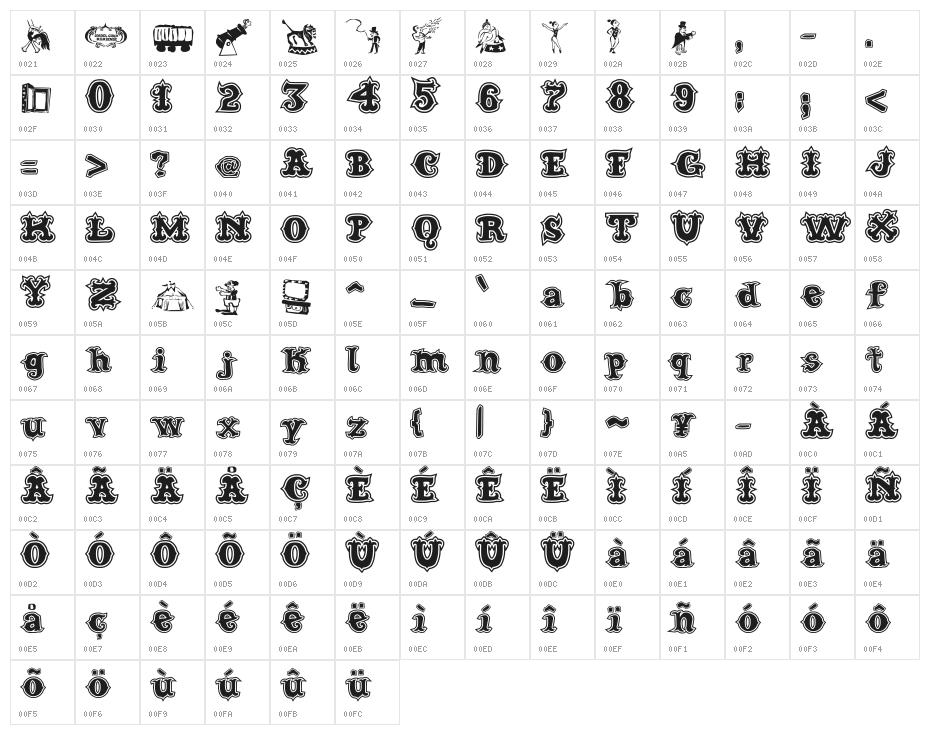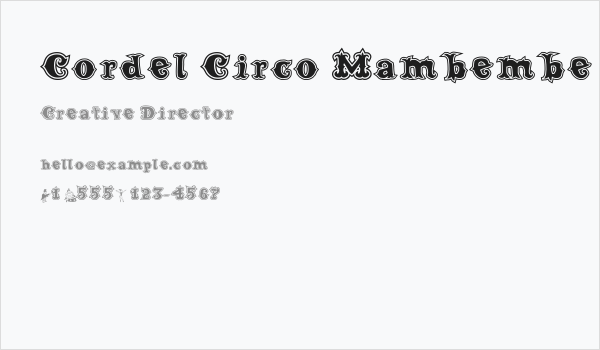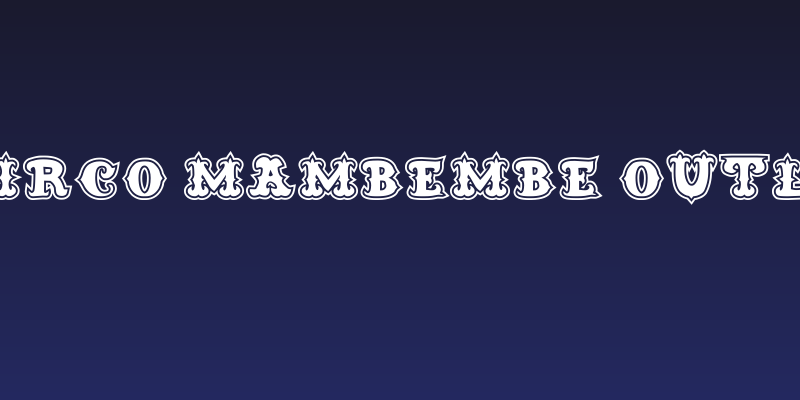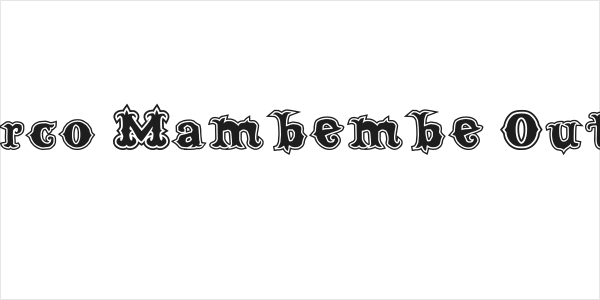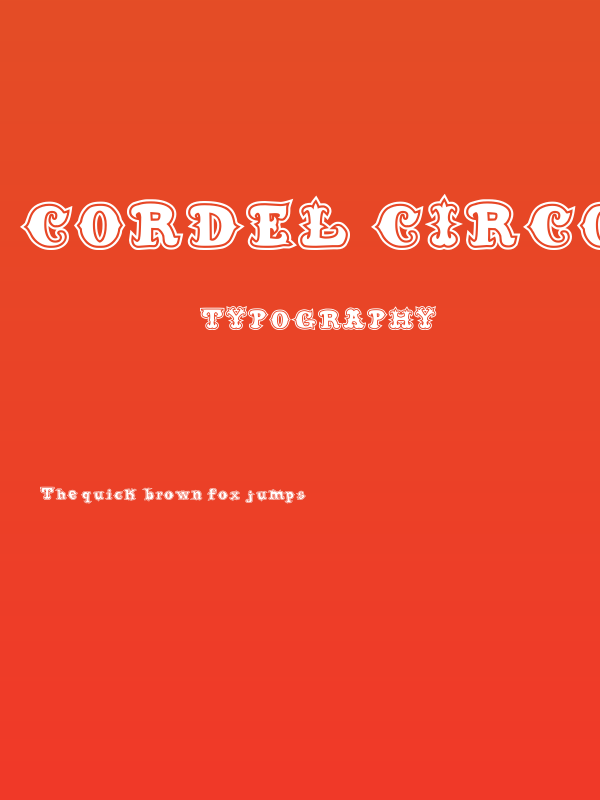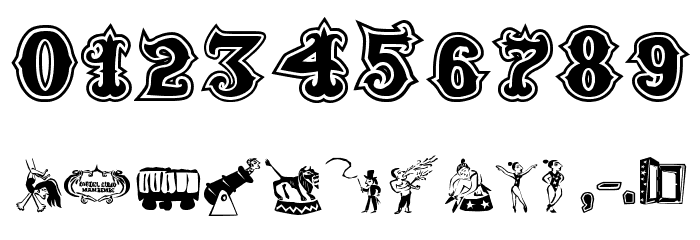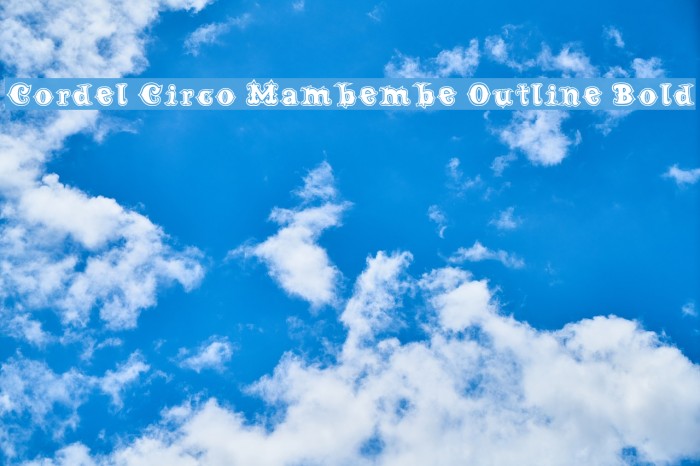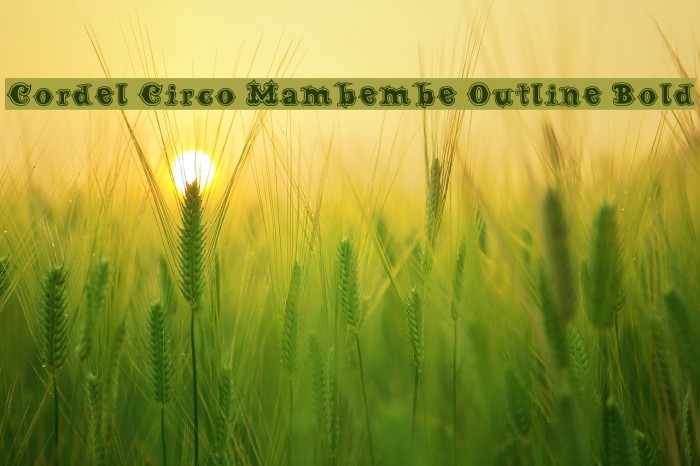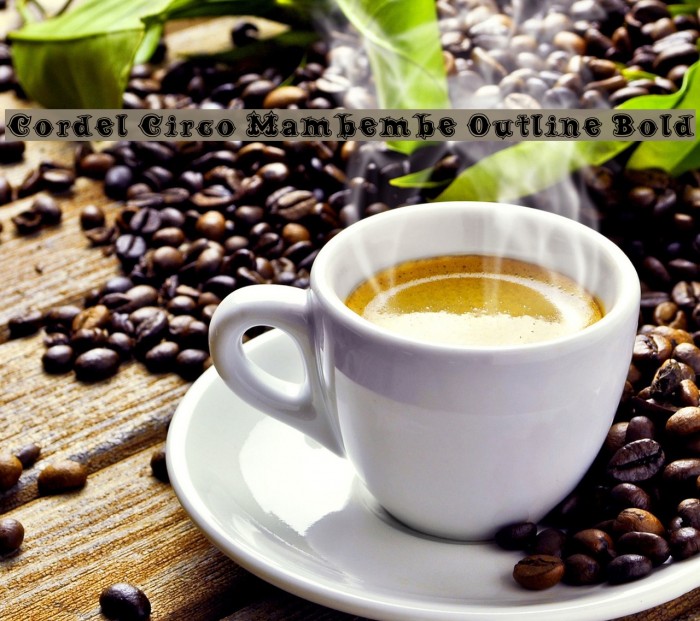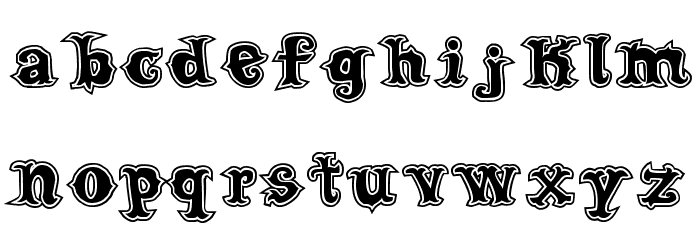
Cordel Circo Mambembe Outline Bold Font
Cordel Circo Mambembe Outline Bold Description
This font features a bold, decorative style with an outline effect that gives it a playful and theatrical appearance. The characters are highly stylized, with intricate details and flourishes that evoke a sense of whimsy and fun. The uppercase letters are particularly ornate, while the lowercase letters maintain a consistent style with slightly less embellishment. The numbers and special characters follow the same decorative theme, making the font cohesive and visually striking. This font is ideal for projects that require a bold and eye-catching display, such as posters, banners, or event invitations.
| Proposed Projects | Ideal for circus-themed posters, playful event invitations, or eye-catching banners. |